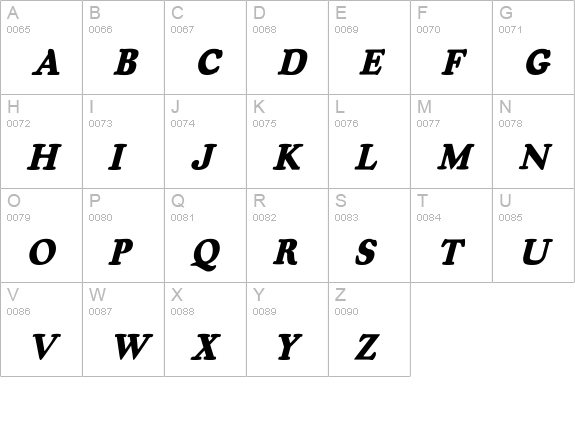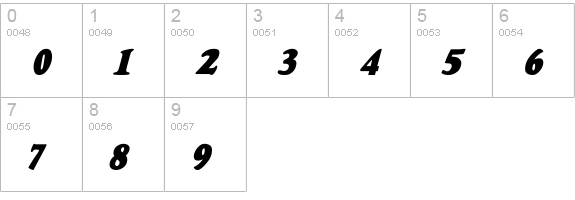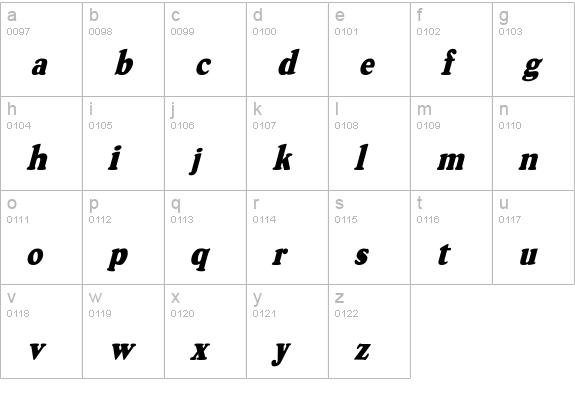
RSOswaldGrey Italic Font Details
RSOswaldGrey Italic is a distinctive, italic variant in the RSOswaldGrey typeface family \xE2\x80\x94 well suited to design and typography projects.
Introducing RSOswaldGrey Italic font – a sleek and modern typeface that exudes sophistication and elegance. The italicized design adds a touch of flair and style to any project, making it perfect for branding, logos, headlines, and more. Its unique blend of clean lines and subtle curves creates a harmonious balance that is both eye-catching and easy to read. What sets RSOswaldGrey Italic font apart is not only its striking aesthetics but also its accessibility. This versatile font is freely available to download at FontsMarket.com, making it an excellent choice for designers, creatives, and anyone looking to elevate their work with a touch of refinement. Whether you're designing a website, creating marketing materials, or crafting a personal project, RSOswaldGrey Italic font is sure to make a lasting impression. Elevate your designs with this stunning typeface today.